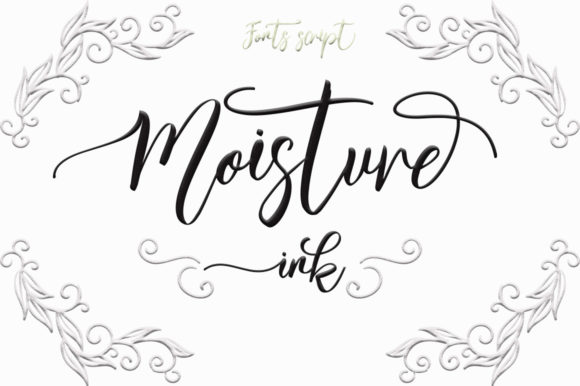
Welcome to the world of Moisture Ink Font, a stunning creation by YanIndesign, where elegance and creativity harmoniously intertwine. This script font is not just a collection of letters; it's an artistic expression that will transform your designs into captivating masterpieces.
Embark on a journey through the world of Moisture Ink, where every letter dances with finesse and grace. The beautifully handcrafted letters exude an enchanting aura, inviting you to create designs that resonate with your soul. Let your imagination soar as you explore the unique uppercase and lowercase letters, each one a testament to the artistry of its creator.
Immerse yourself in the world of Moisture Ink and fall in love with its ligatures and alternates. These exquisite elements add a touch of sophistication and personalization to your designs, allowing you to create truly bespoke masterpieces. Unleash your creativity and let your inner artist shine through as you experiment with different combinations, crafting designs that captivate and inspire.
Indulge in the exquisite charm of Moisture Ink and let its flowing feel transport you to a realm of aesthetic bliss. Say goodbye to ordinary fonts and embrace the extraordinary with Moisture Ink, a script that will elevate your designs to new heights of beauty and elegance.